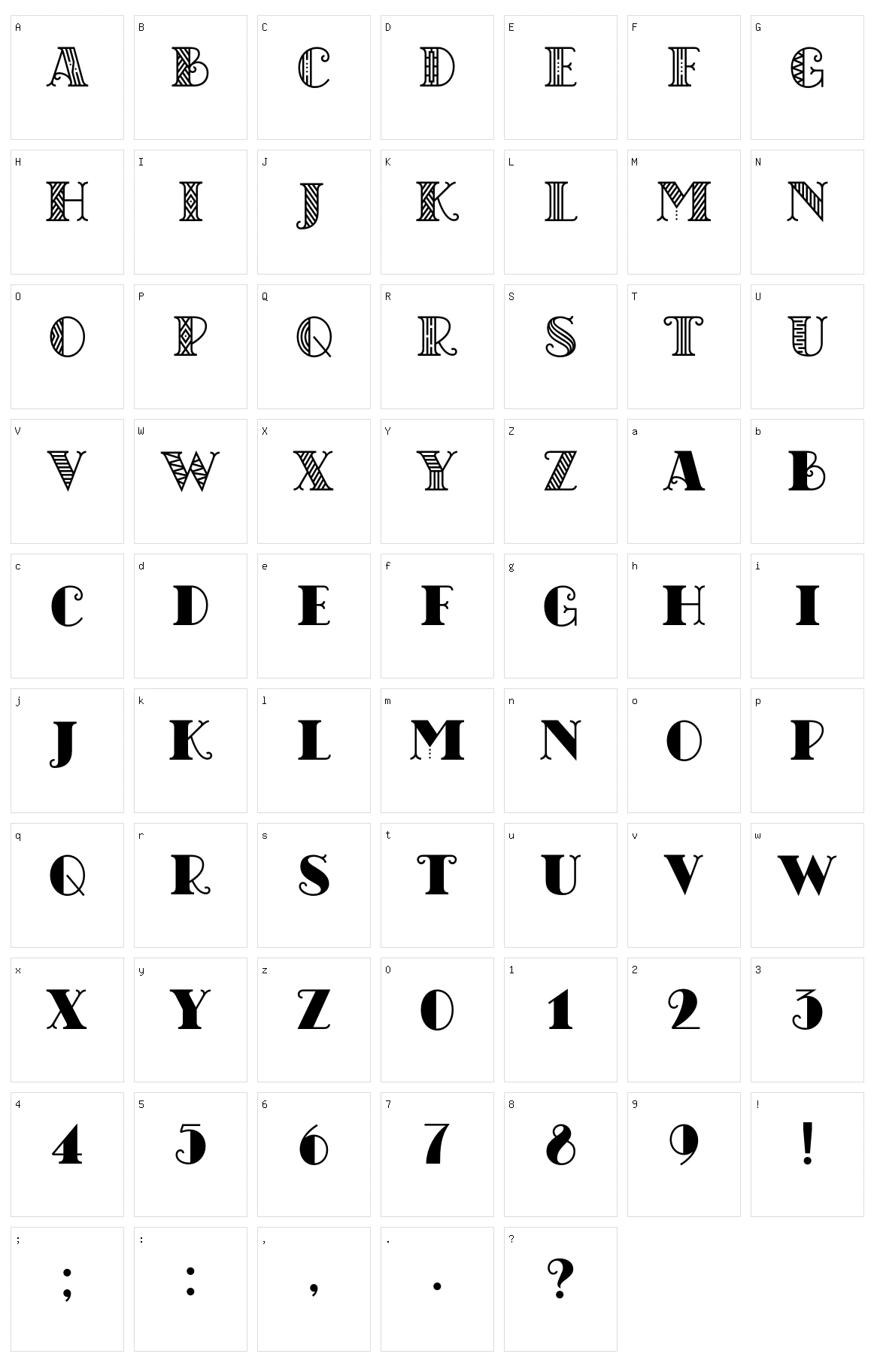
ÿþC H I C A G O M O O N S H I N E i s a n A r t D e c o s e r i f A l l C a p s d i s p l a y f o n t .
P l e a s e n o t e t h a t t h i s i s p r i m a r i l y f o r h e a d l i n e s , l o g o s p o s t e r s i n l a r g e s i z e .
T h e f u l l v e r s i o n c h a r a c t e r s e t c o n t a i n s W e s t e r n a n d E a s t e r n E u r o p e a n l a t i n l a n g u a g e s , b a s i c s y m b o l s a n d p u n c t u a t i o n . T h e C a p i t a l l e t t e r s h a s g e o m e t r i c p a t t e r n s a n d i n p l a c e o f l o w e r c a s e l e t t e r s t h e r e a r e f i l l e d i n C a p i t a l s .